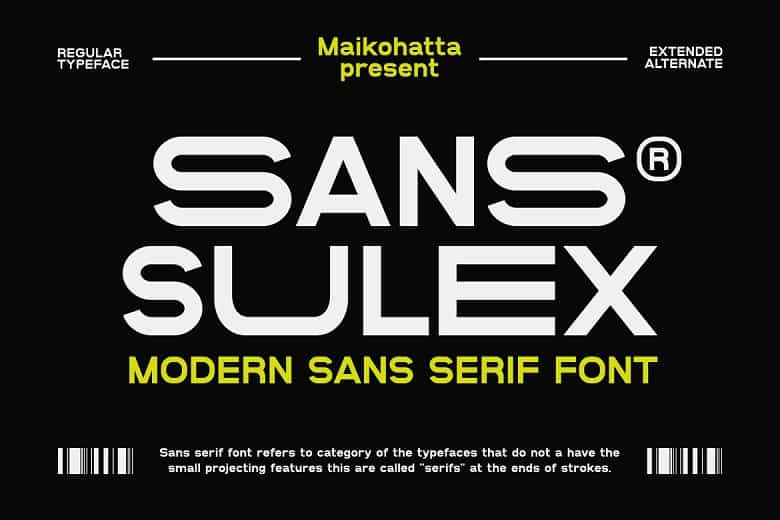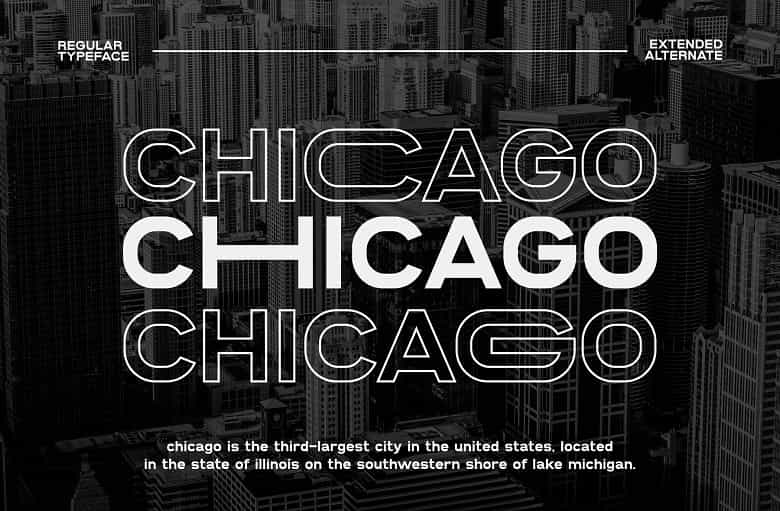
Sans Sulex is a contemporary sans serif font. This Font is rather versatile and can be applied to the majority of designs. Due to the clean and modern appearance, and the simplicity of the design, this font is suitable for the use in the field of graphic design and modern typography.